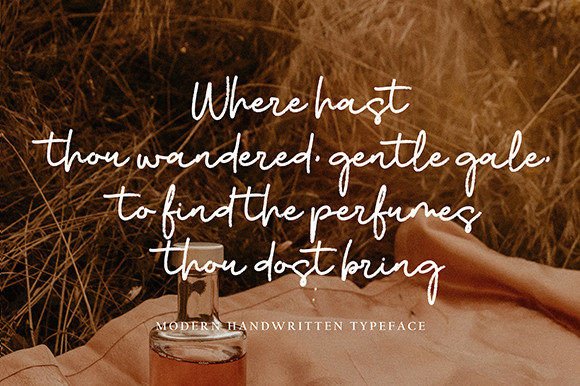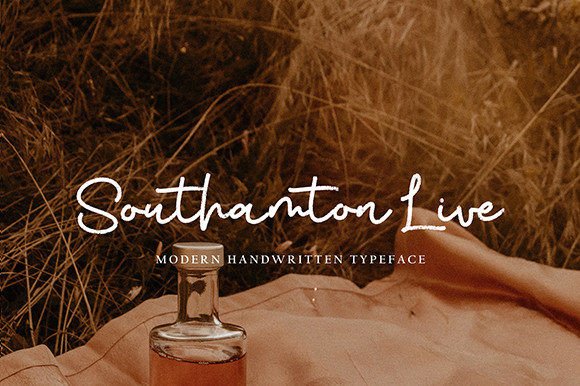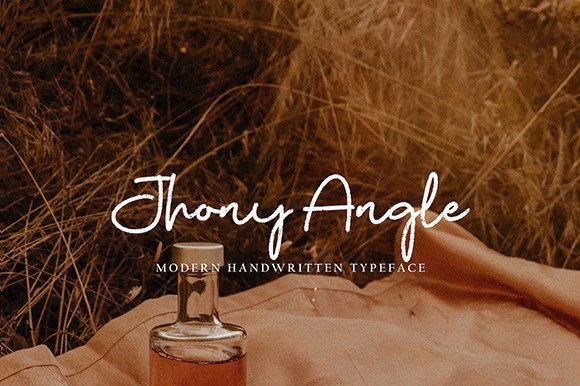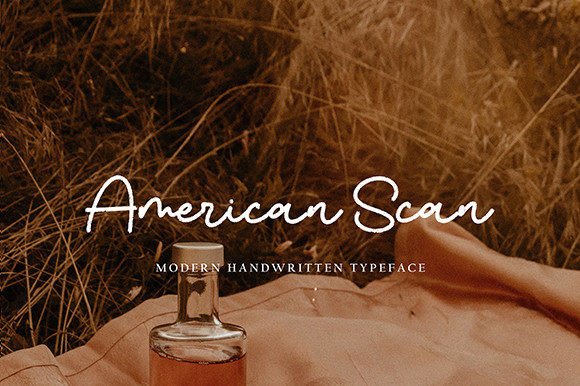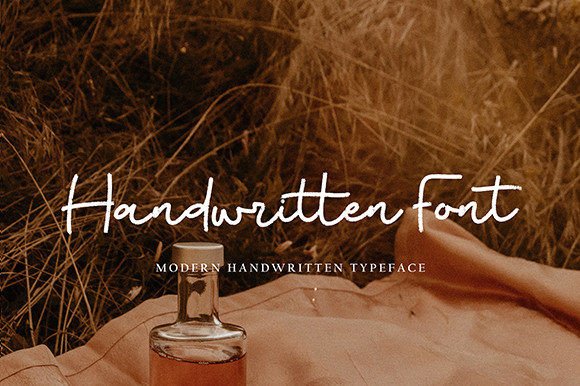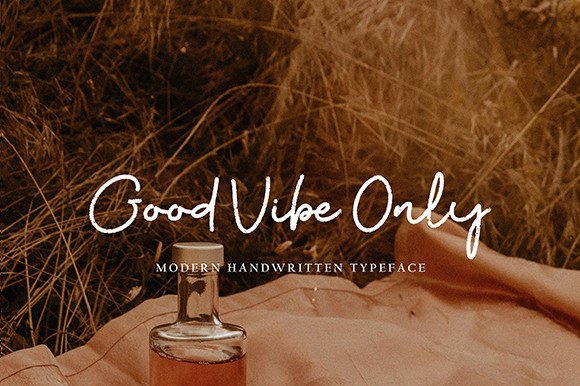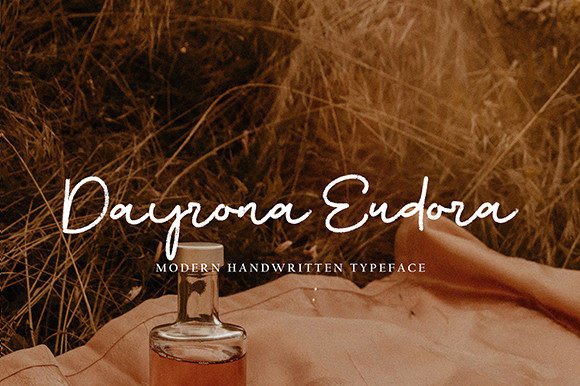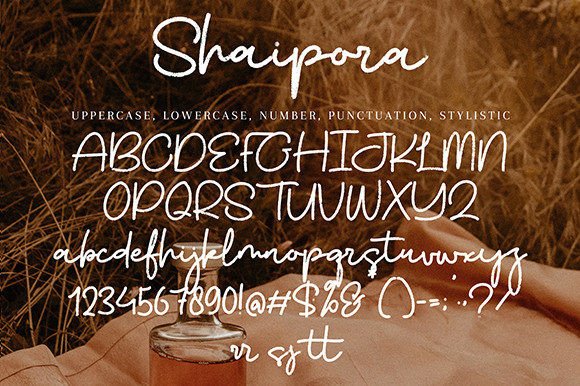
Shaipora Font
Add Charm and Elegance to Your Designs with Shaipora Font
Shaipora Font is a stunning handwritten script designed to add warmth and class to your creative projects. With its graceful curves and sophisticated style, this font is a beautiful choice for designers looking to create memorable work. Whether you’re crafting a heartfelt wedding invitation or a professional logo, Shaipora Font fits effortlessly into every design space.
Inspired by Handwritten Sophistication
The charm of Shaipora Font lies in its handcrafted aesthetic. Inspired by traditional cursive handwriting, it balances delicate strokes with modern readability. This balance makes it highly versatile and suitable for both digital and print formats.
Ideal for a Wide Range of Projects
Shaipora Font isn’t limited to just one purpose—it shines across various design types. You can confidently download and use it for:
• Wedding invitations and thank-you cards
• Elegant branding and logo design
• Quote posters and greeting cards
• Business cards and event stationery
• Social media content with a personalized touch
No matter the context, the font adds a sense of intimacy and professionalism.
Why Designers Love Shaipora Font
Here are some reasons Shaipora Font is a must-have in your font collection:
• Adds elegance to every word
• Offers great readability without sacrificing style
• Enhances emotional appeal in invitations and quotes
• Includes bonus features for customization
Its flowy and clean design not only looks beautiful but also feels genuine and personal. This makes it perfect for projects where a human touch is essential.